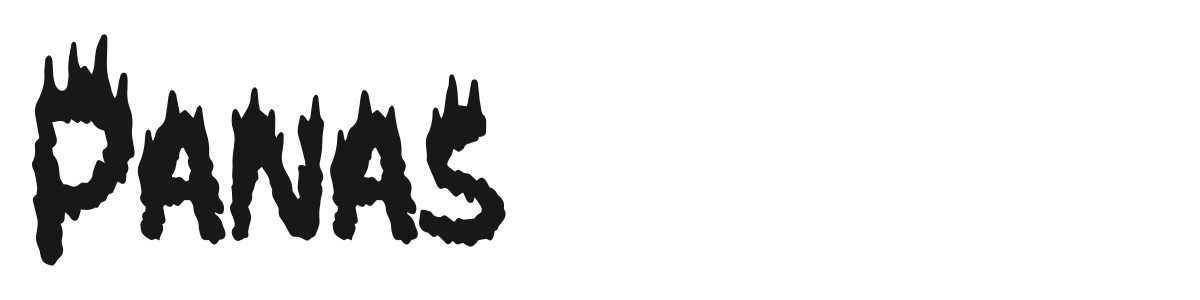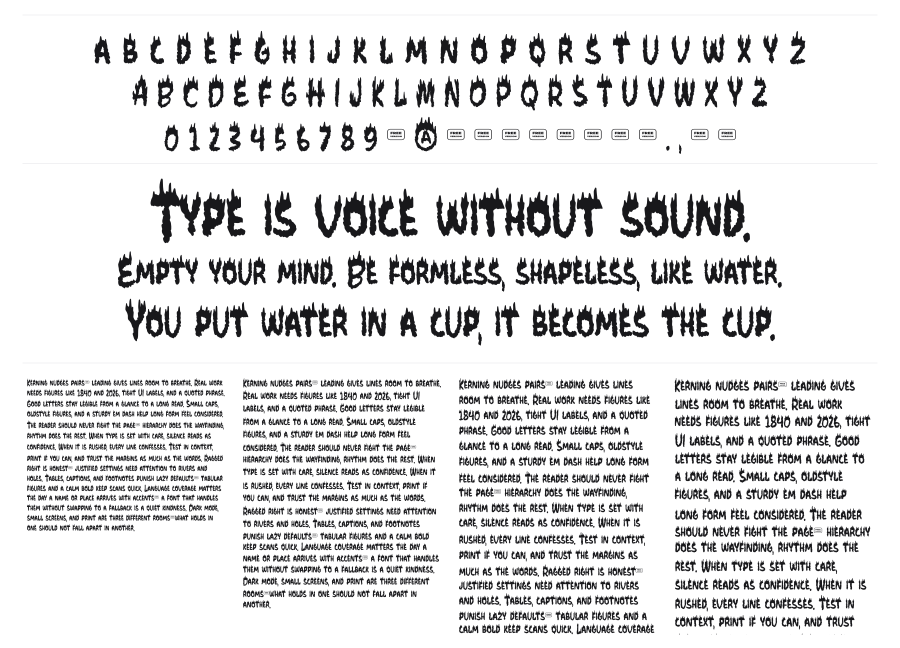
Panas
Panas is a heavy display font built around a fire and flame aesthetic, with jagged spikes and drips jutting from every character. The thick, chunky forms read clearly at large sizes while the irregular texture keeps things raw and energetic. It suits spicy food brands, hot sauce packaging, music posters, or any project that needs to feel like it is on fire.